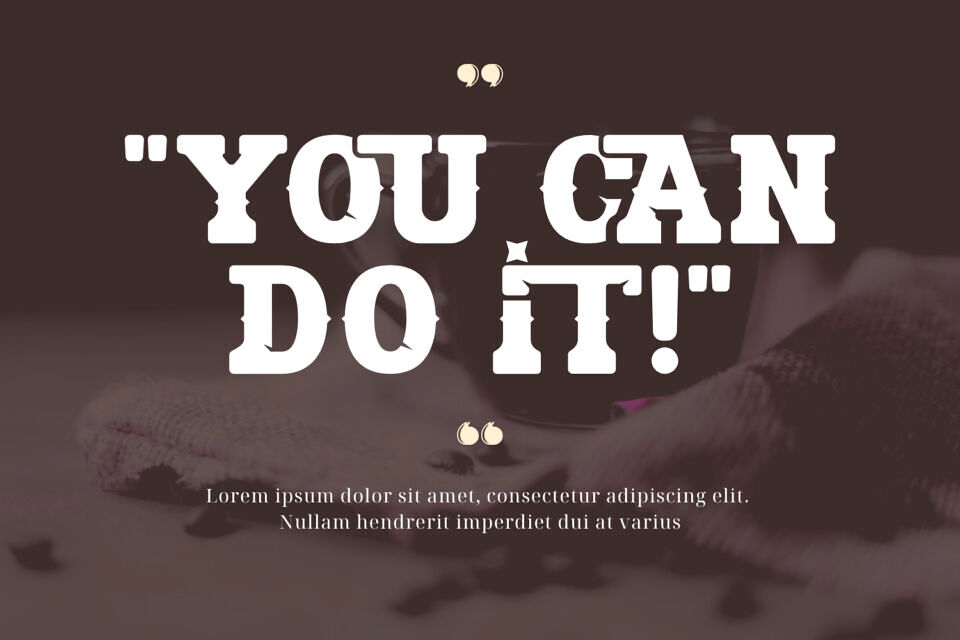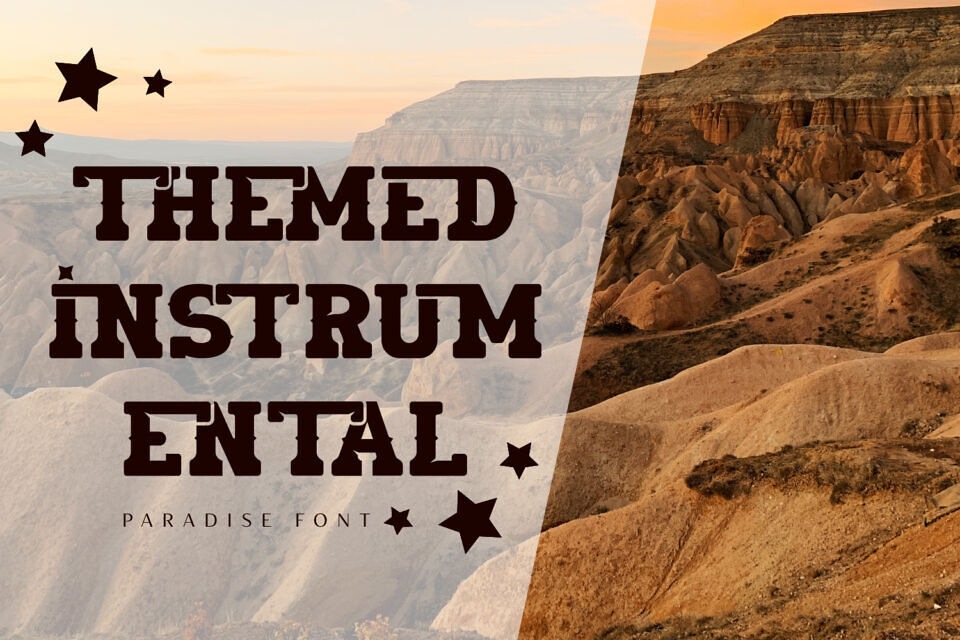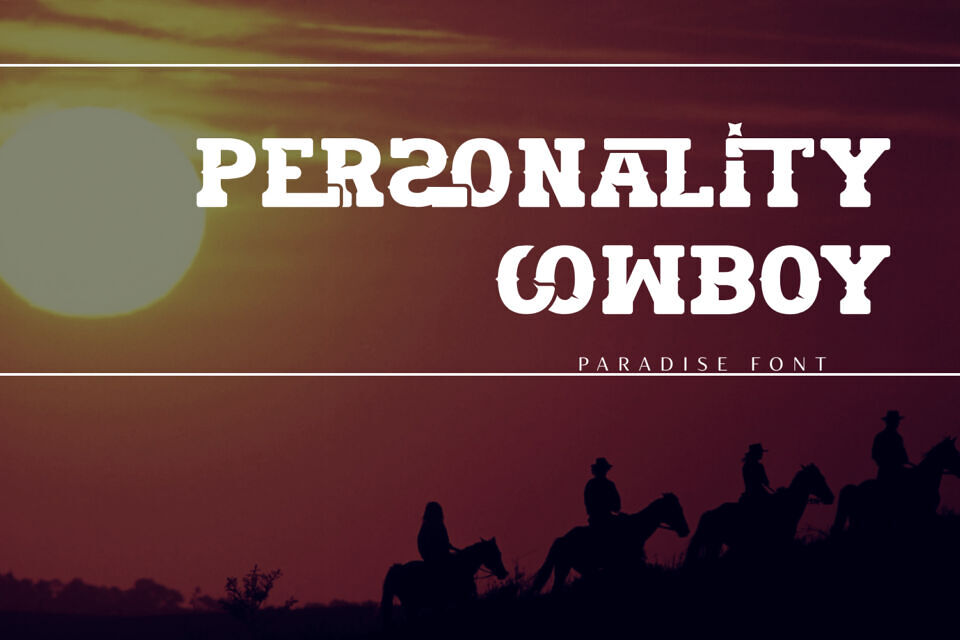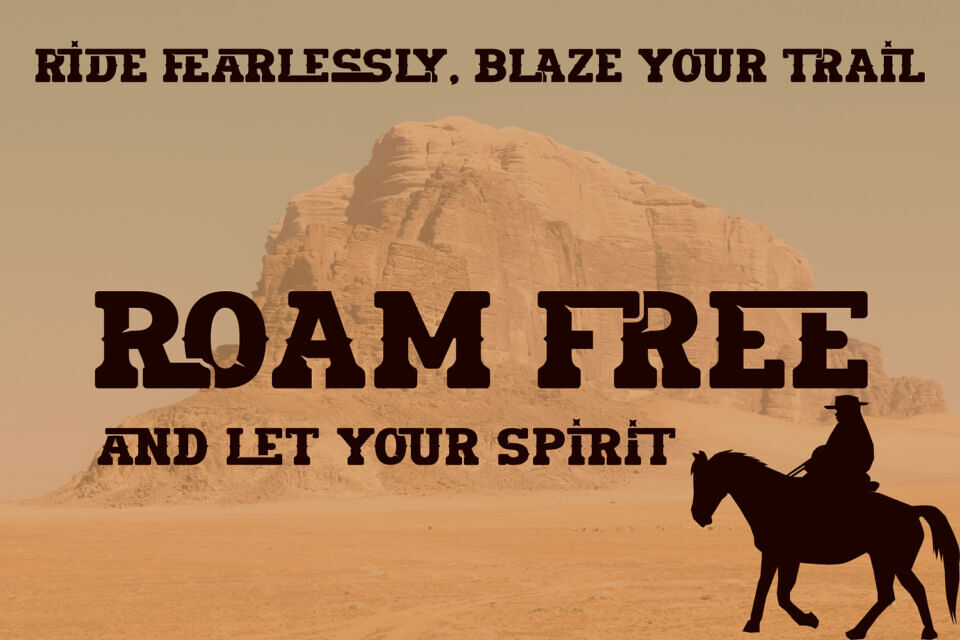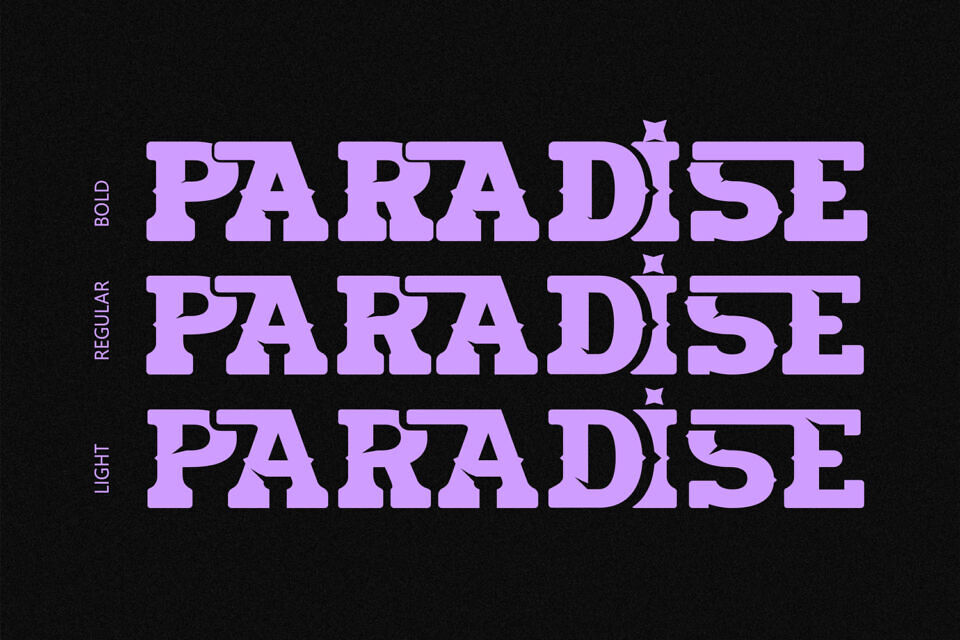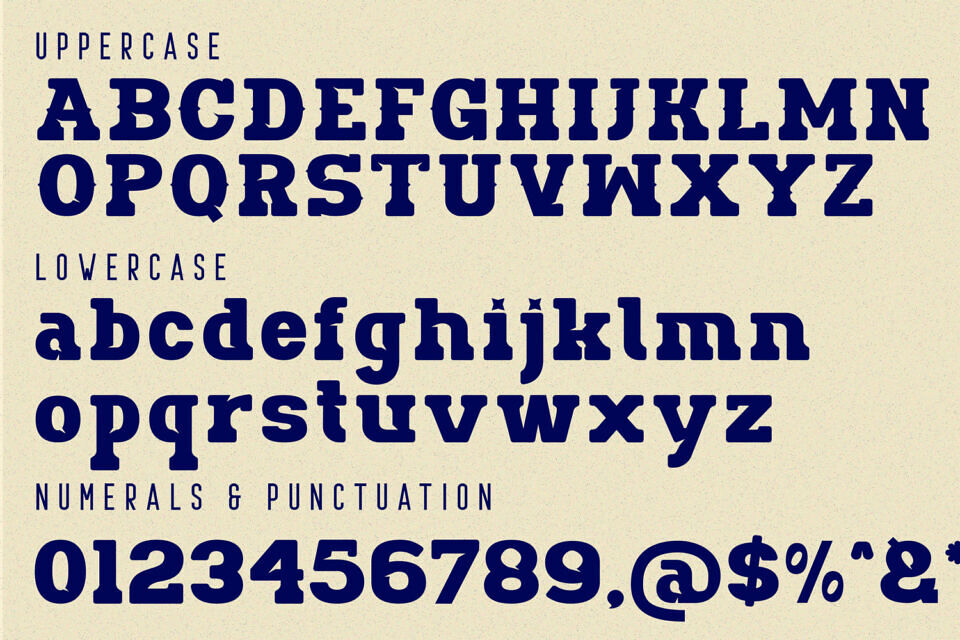
PARADISE is a Bold Western Serif Font, a striking Modern Western Serif Typeface that blends vintage aesthetics with a contemporary touch.
Designed for those who seek boldness and character in their typography, this font is perfect for logos, posters, merchandise, signage, and editorial designs.